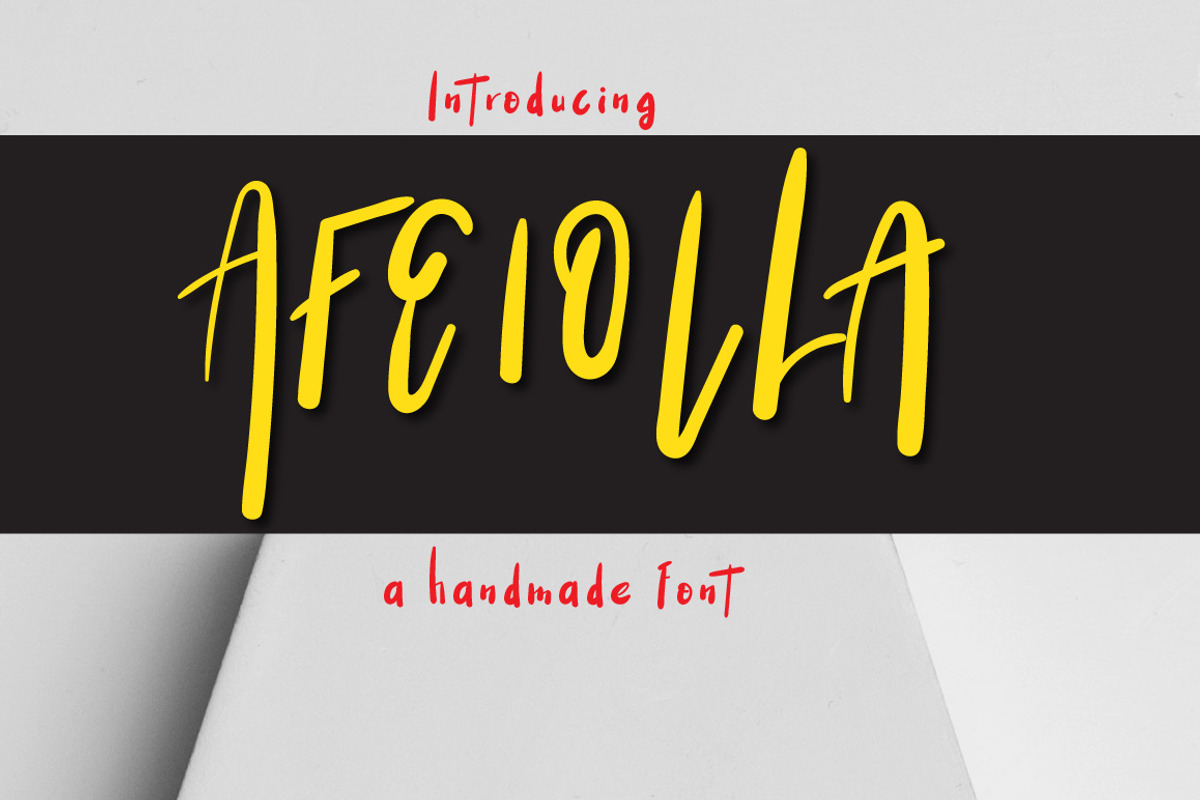
Afeiolla Typeface
Afeiolla typeface has been carefully crafted to make your text look beautiful. With modern style this font is perfect for many different project ex: quotes, blog header, poster, wedding, branding, logo, fashion, apparel, letter, invitation, stationery, etc.
Why Afeiolla Typeface is worth a look
Afeiolla Typeface by Zmapist fits naturally into Branding, posters, packaging, typography.